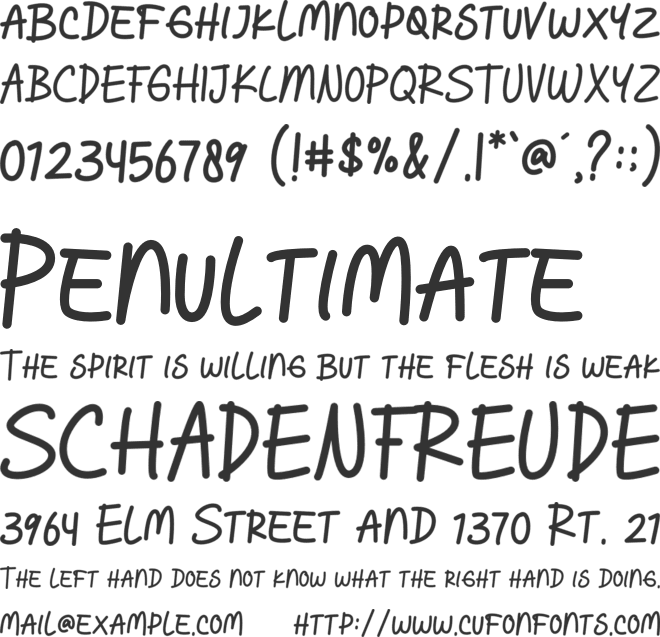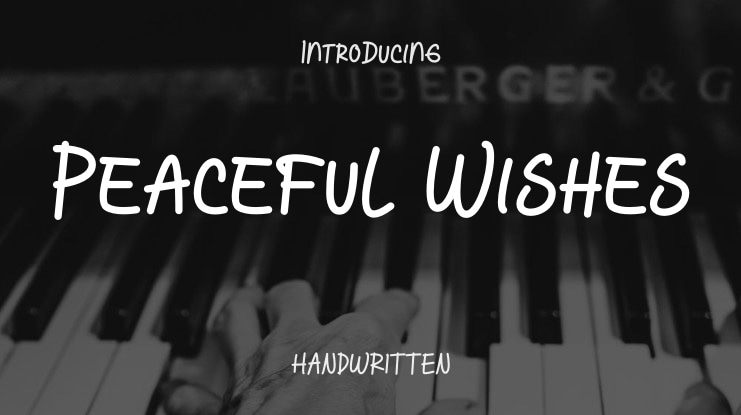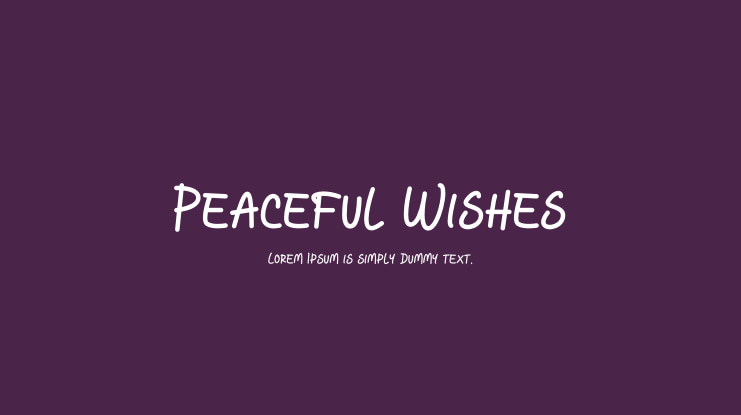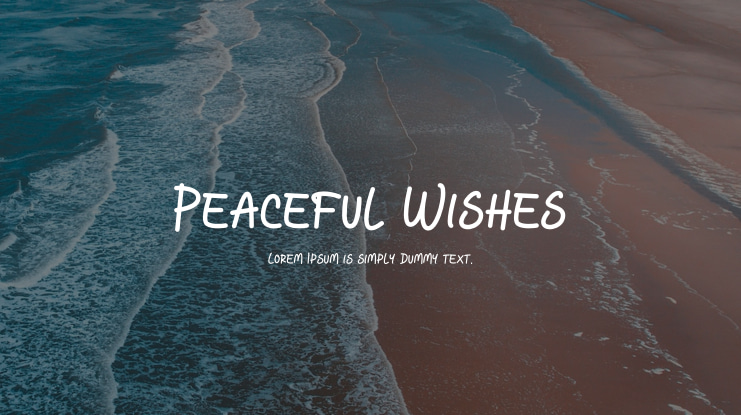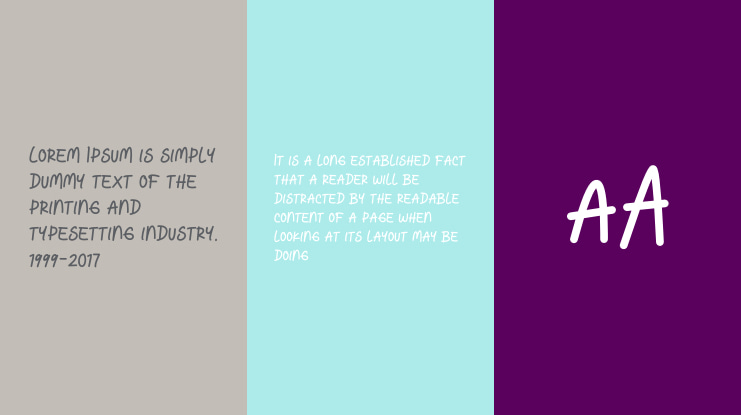
Peaceful Wishes Font
Peaceful Wishes is an exquisitely designed handwritten font that exudes warmth and joy in any design. Its natural and playful strokes embody heartfelt expressions and genuine connections. Each letter seamlessly flows, creating a relaxed and friendly appearance that feels both inviting and personal.